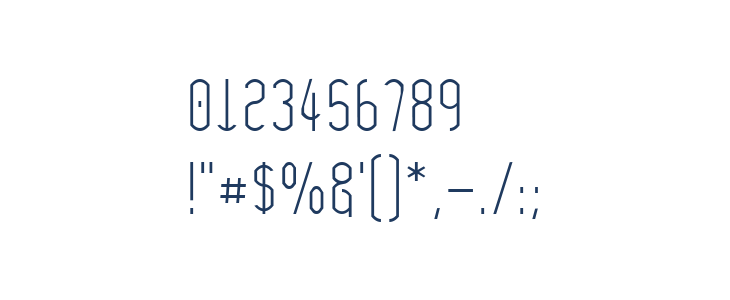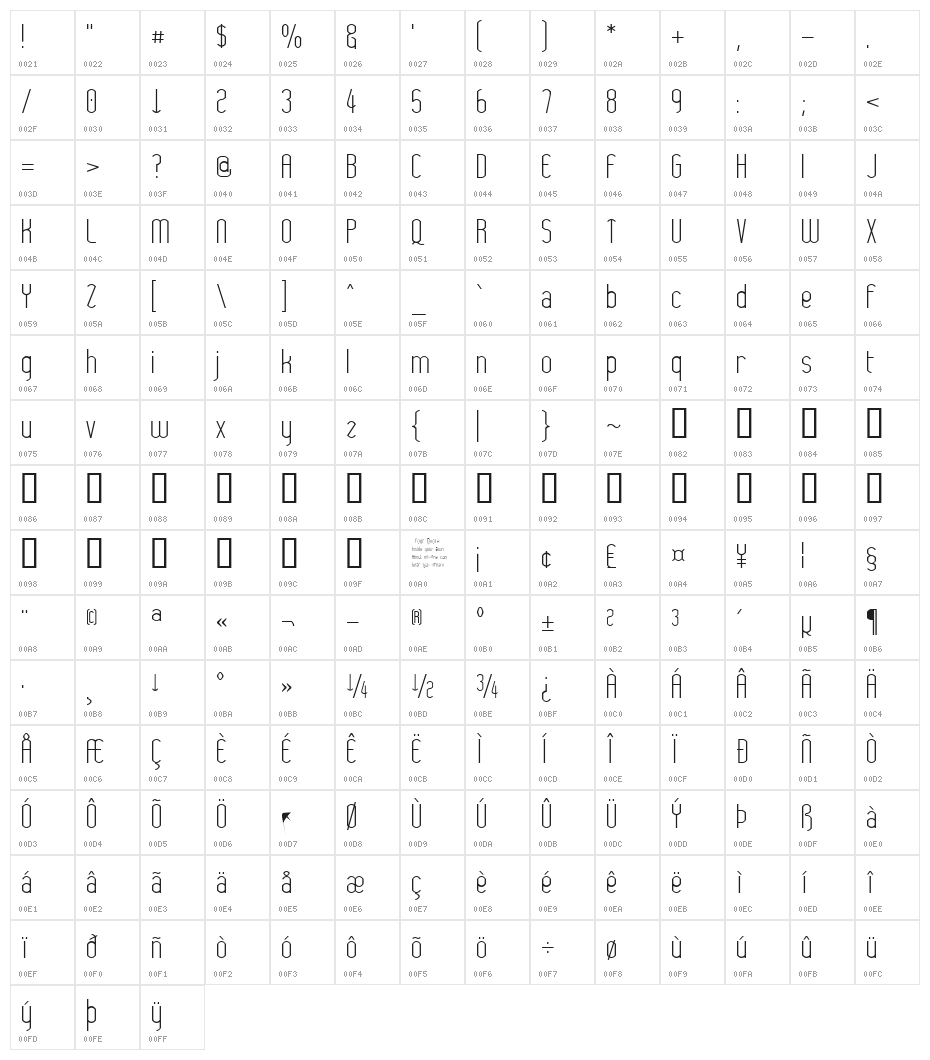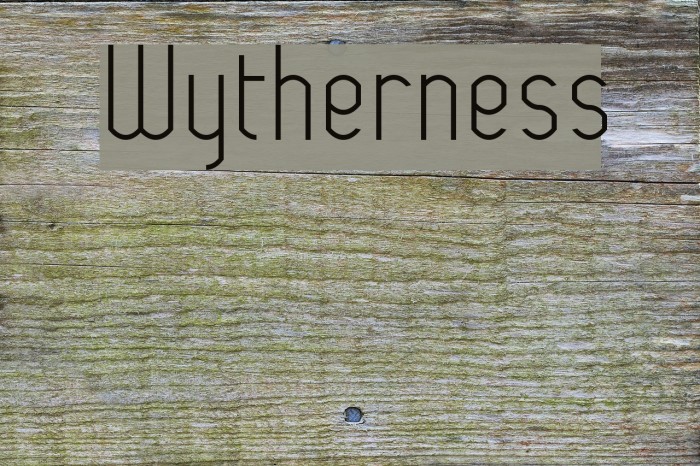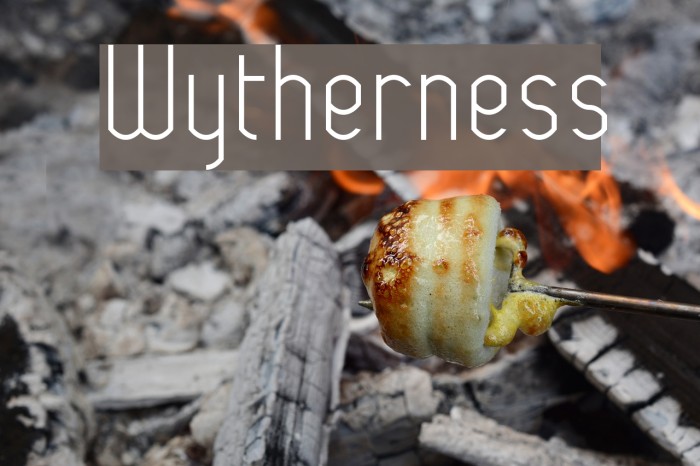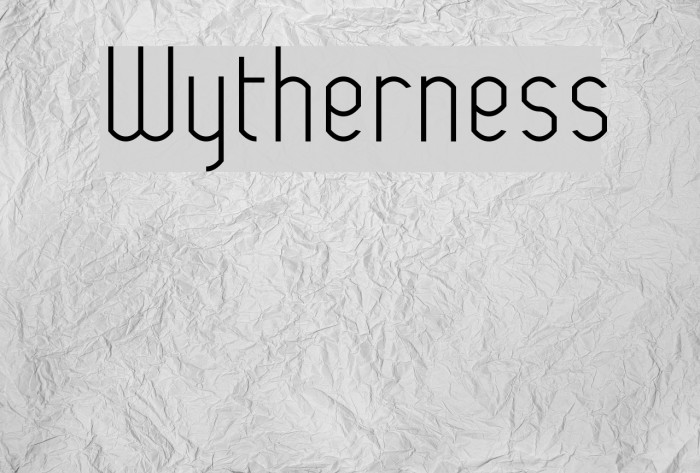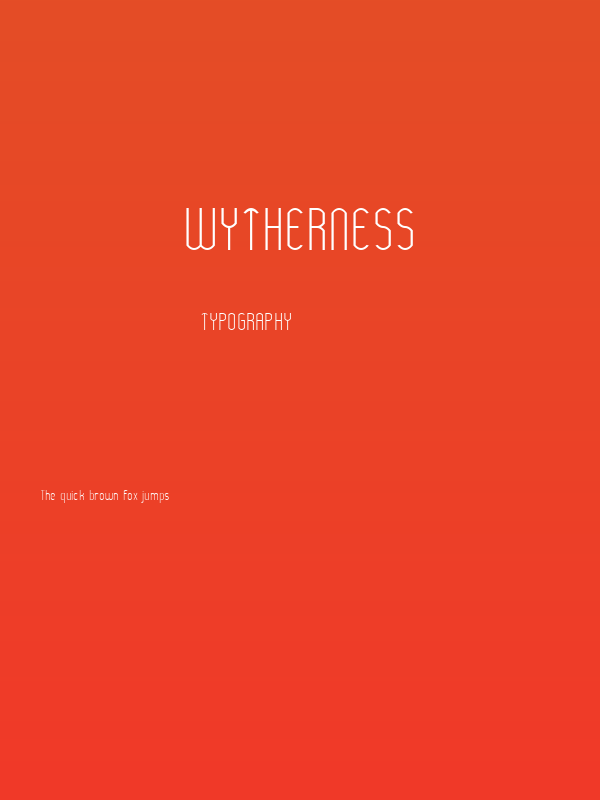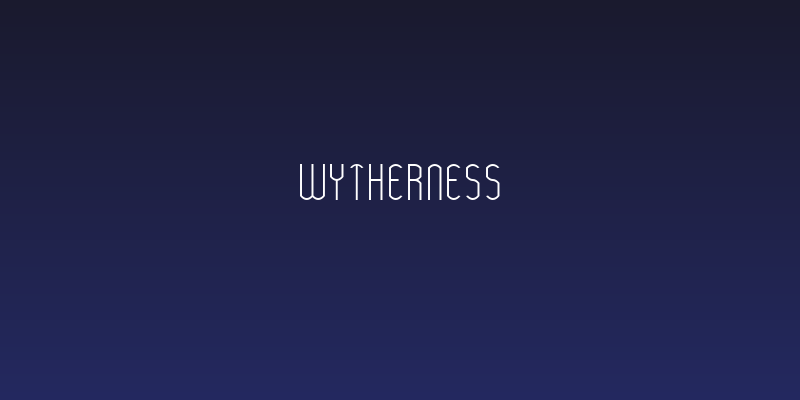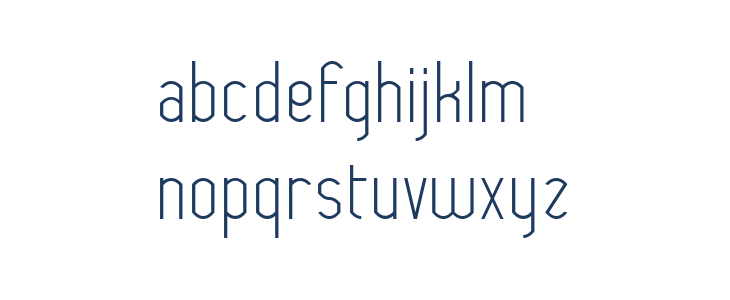
Wytherness Font
Wytherness Description
This font features a modern and geometric design with clean lines and a minimalist aesthetic. The uppercase and lowercase letters are tall and narrow, giving a sleek and sophisticated appearance. The numerals and special characters maintain the same geometric style, ensuring consistency across all glyphs. The font's uniform stroke width contributes to its contemporary look, making it suitable for a variety of design applications. Its simplicity and elegance make it a versatile choice for both digital and print media.
| Use Case | Headlines, Logos, Web design |
| Proposed Projects | Ideal for branding, editorial design, web design, and advertising materials. |